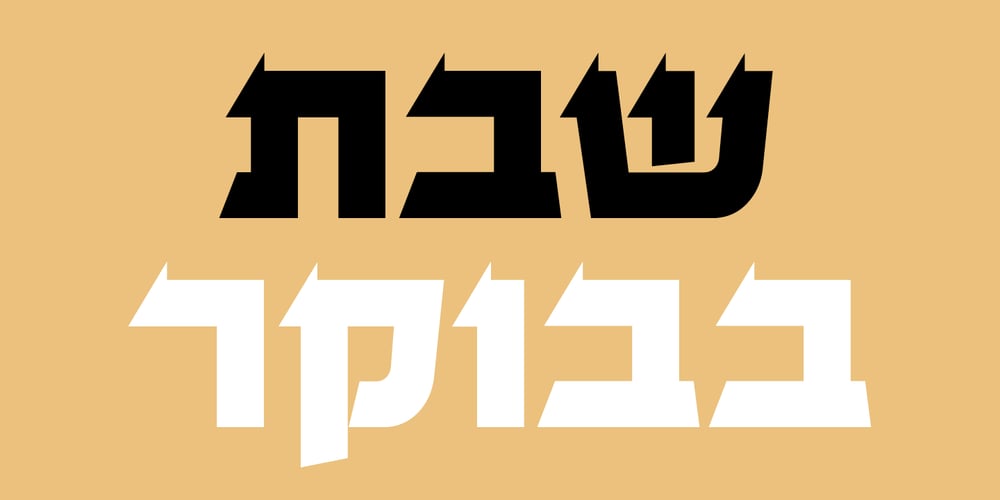
Masoua MF Font Family was designed by Omer Peleg and published by Masterfont. Masoua MF contains 1 styles and family package options. Super antique look makes this serif font so special for a vintage poster.